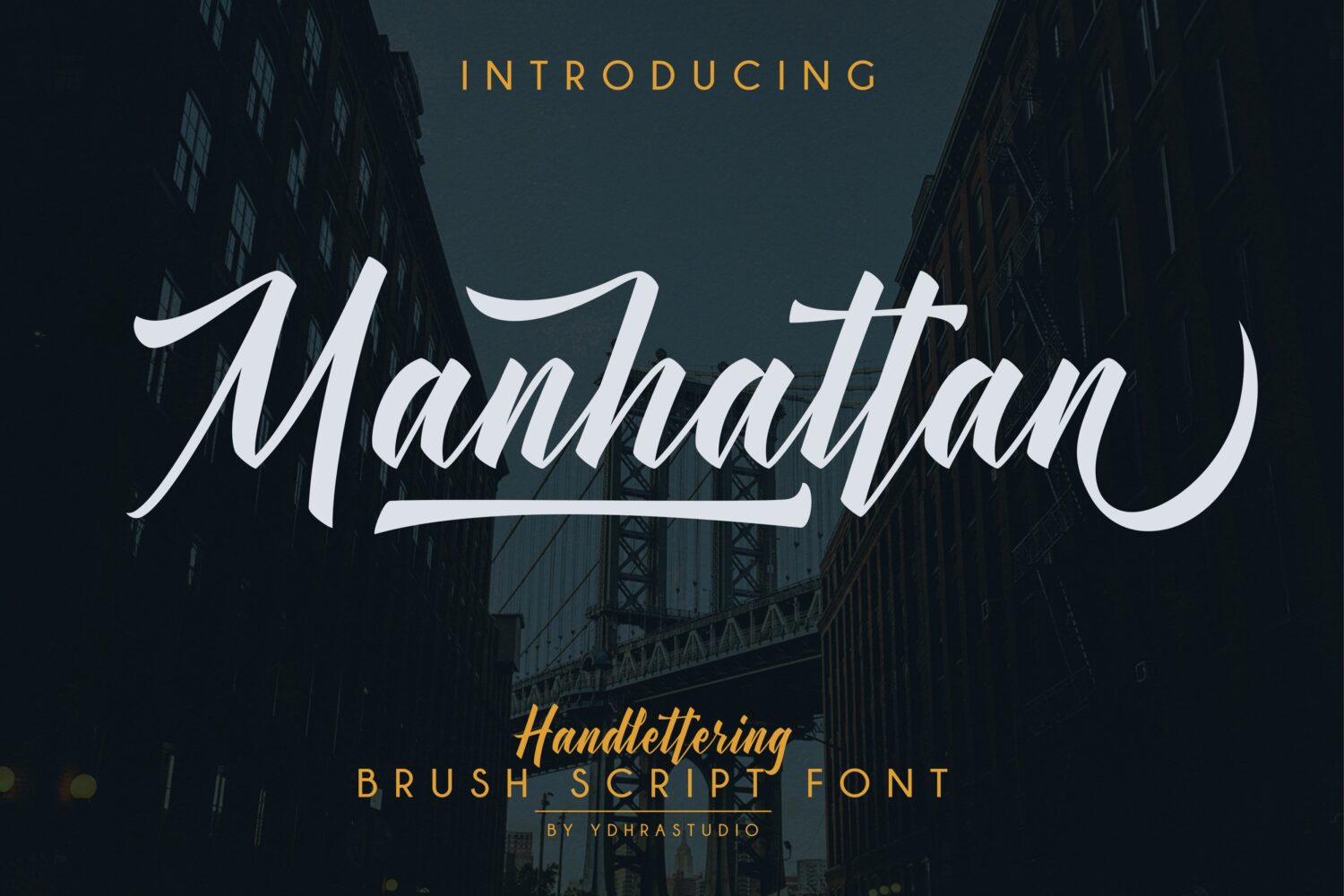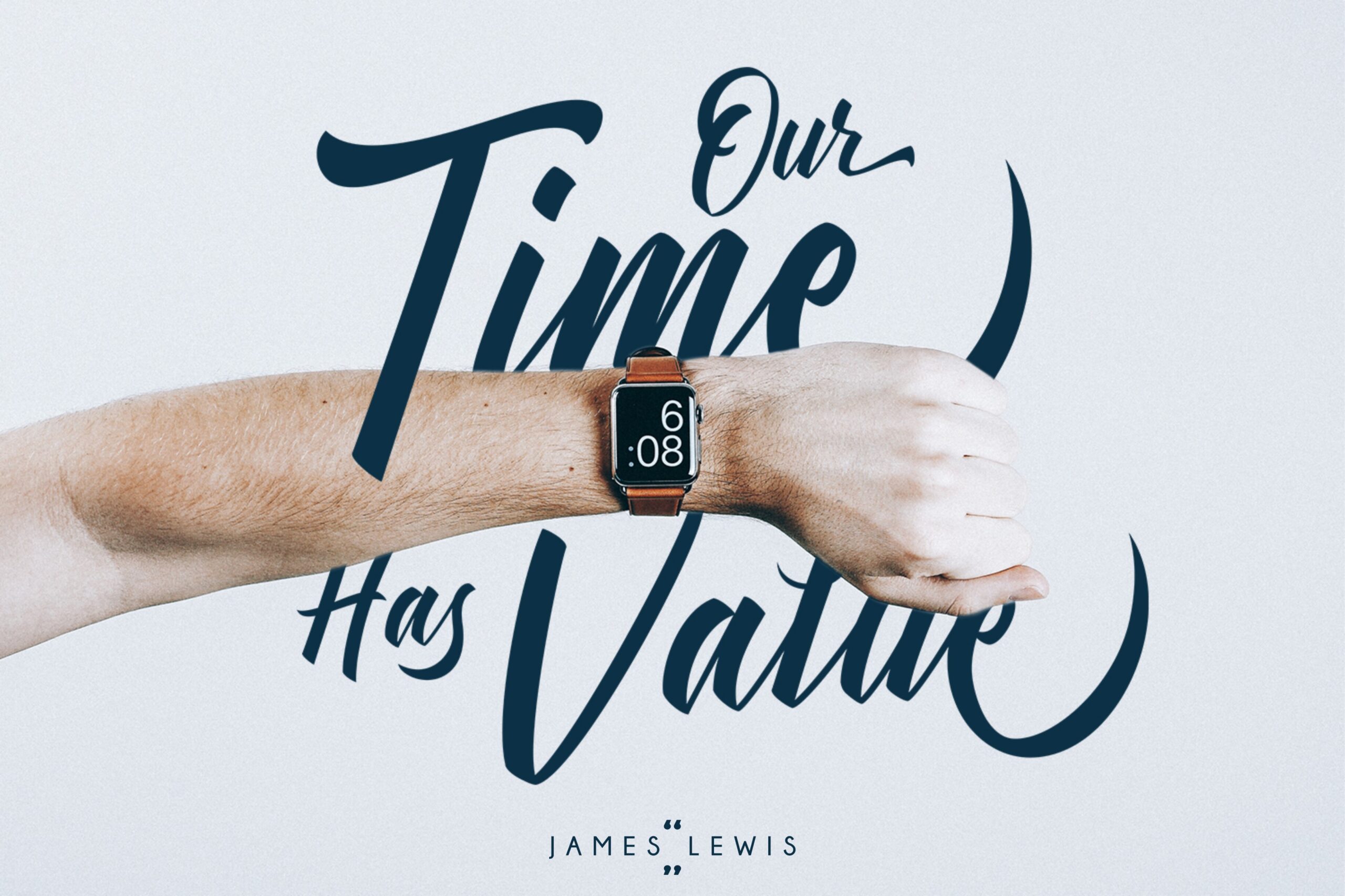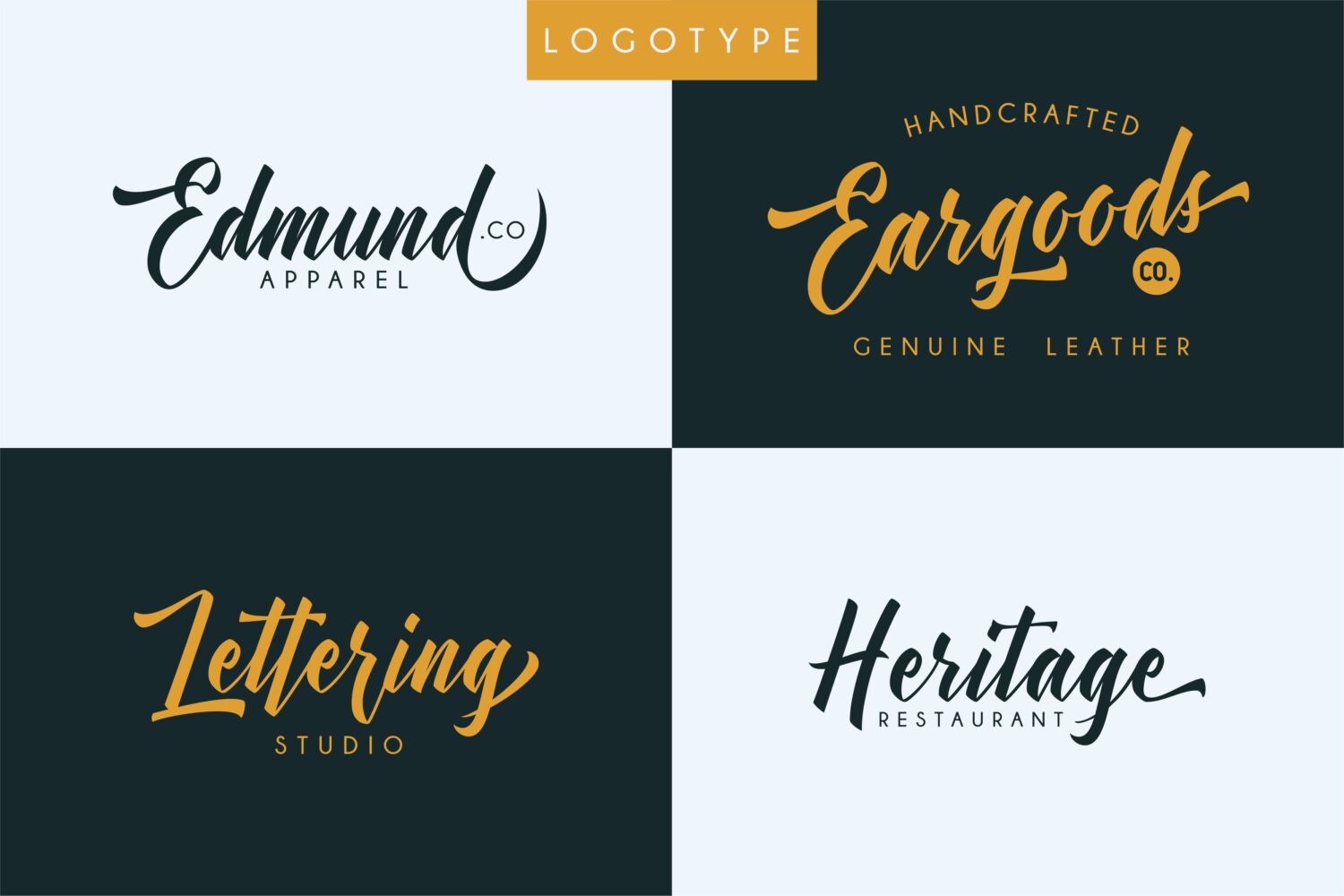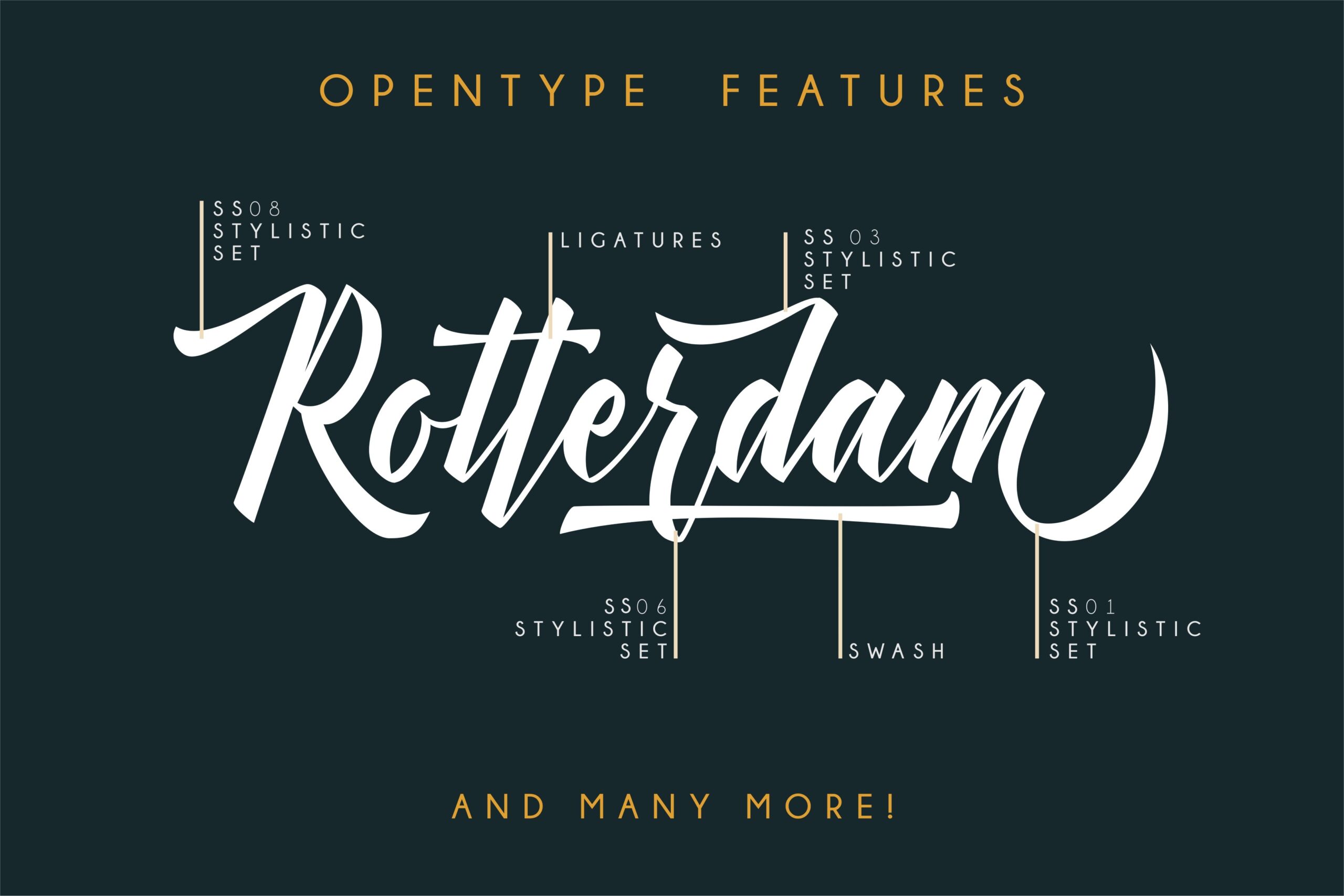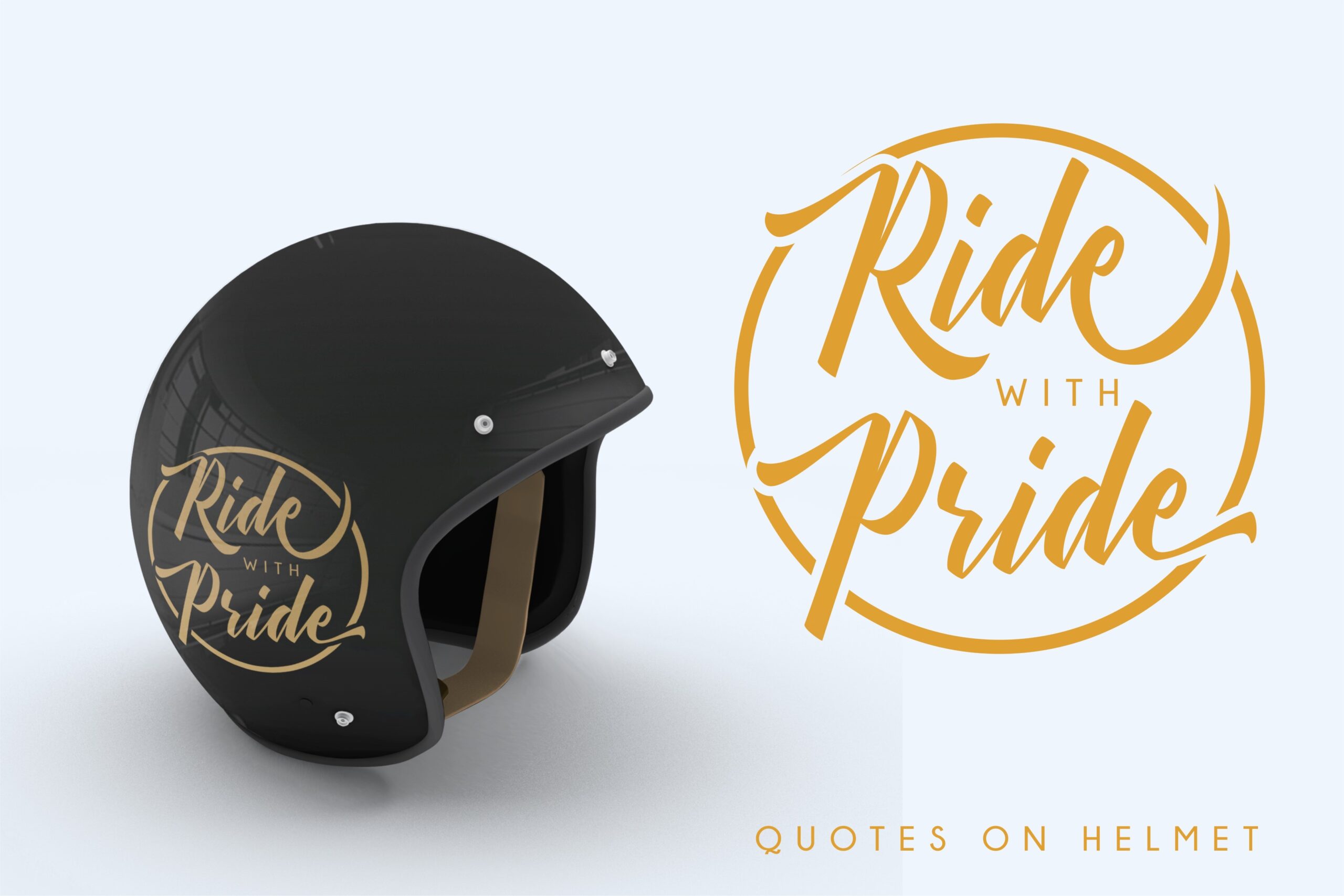
Manhattan Brush Free Font
Manhattan Brush Free Font is a Modern Handlettering Brush Script font. We give you a bonus a swash to make your design look more awesome with Manhattan Font. Manhattan Brush Free Font has a Multilingual Support. Manhattan Brush Free Font is great for Logotype, Branding Design, Logo Design, Digital Lettering Arts, T-Shirt/Apparel, Poster, Magazine, Signs,  Advertising Design, and any hand-lettered needs. This free typeface was designed by a talented Yudha Ageng. If you like it don’t forget to check out the full version.